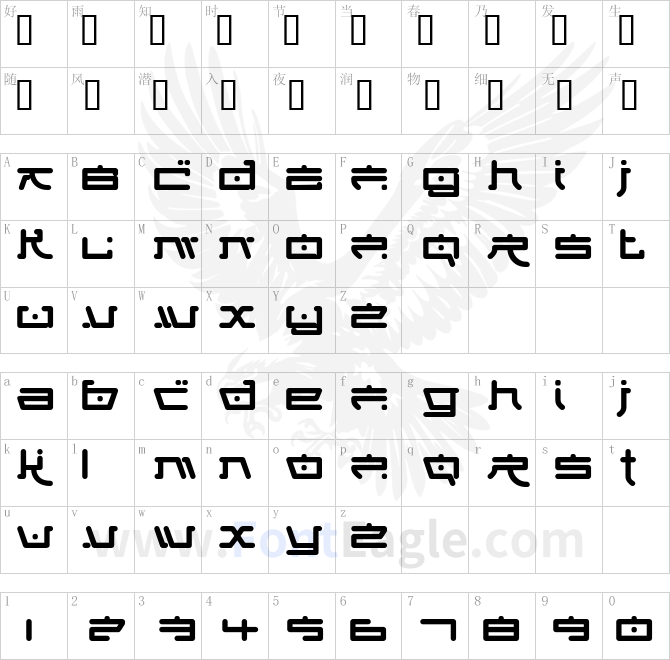
FungFoo is a great font, widely used in graphic design, single-page menu design, poster design and other fields, and is deeply loved by designers.FungFoo download.